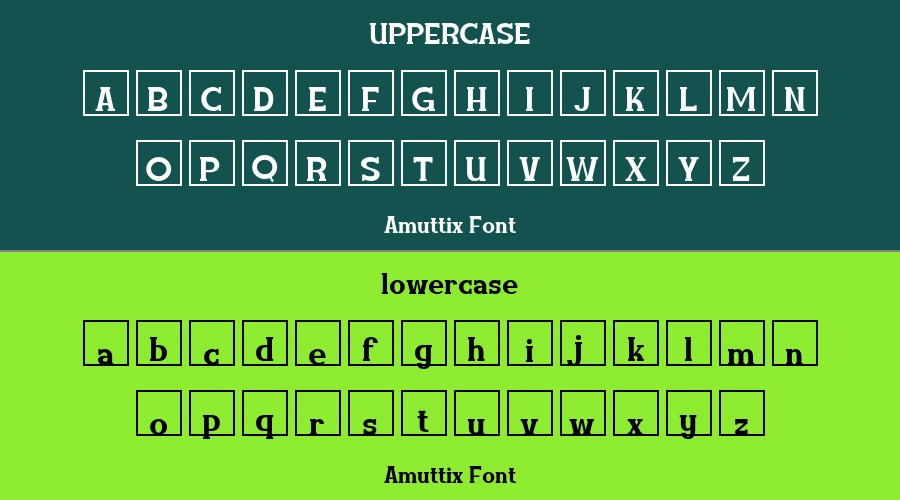
About Amuttix Font
Amuttix Font stands out for its distinctive combination of organic curves and clarity. Ideal for traditional magazines, it provides the versatility and professional authority that professional projects demand. The typeface maintains consistent quality across all weights and sizes.
Key features include refined perfect spacing and practical contextual ligatures, enhancing typographic expression. In formal invitations applications, Amuttix Font demonstrates exceptional overlay performance. The shoulder shape and subtle details contribute to its distinctive character and professional appeal.